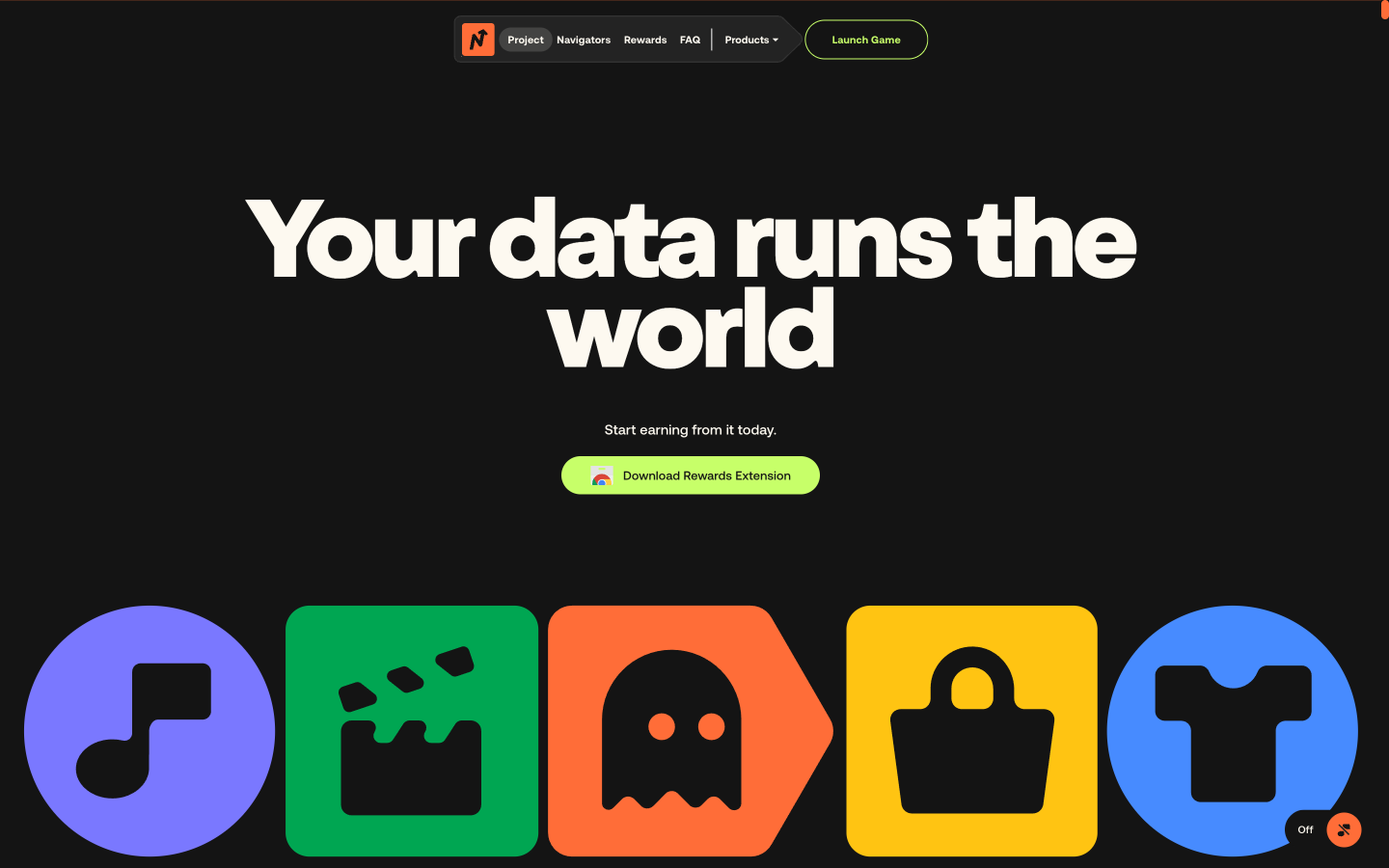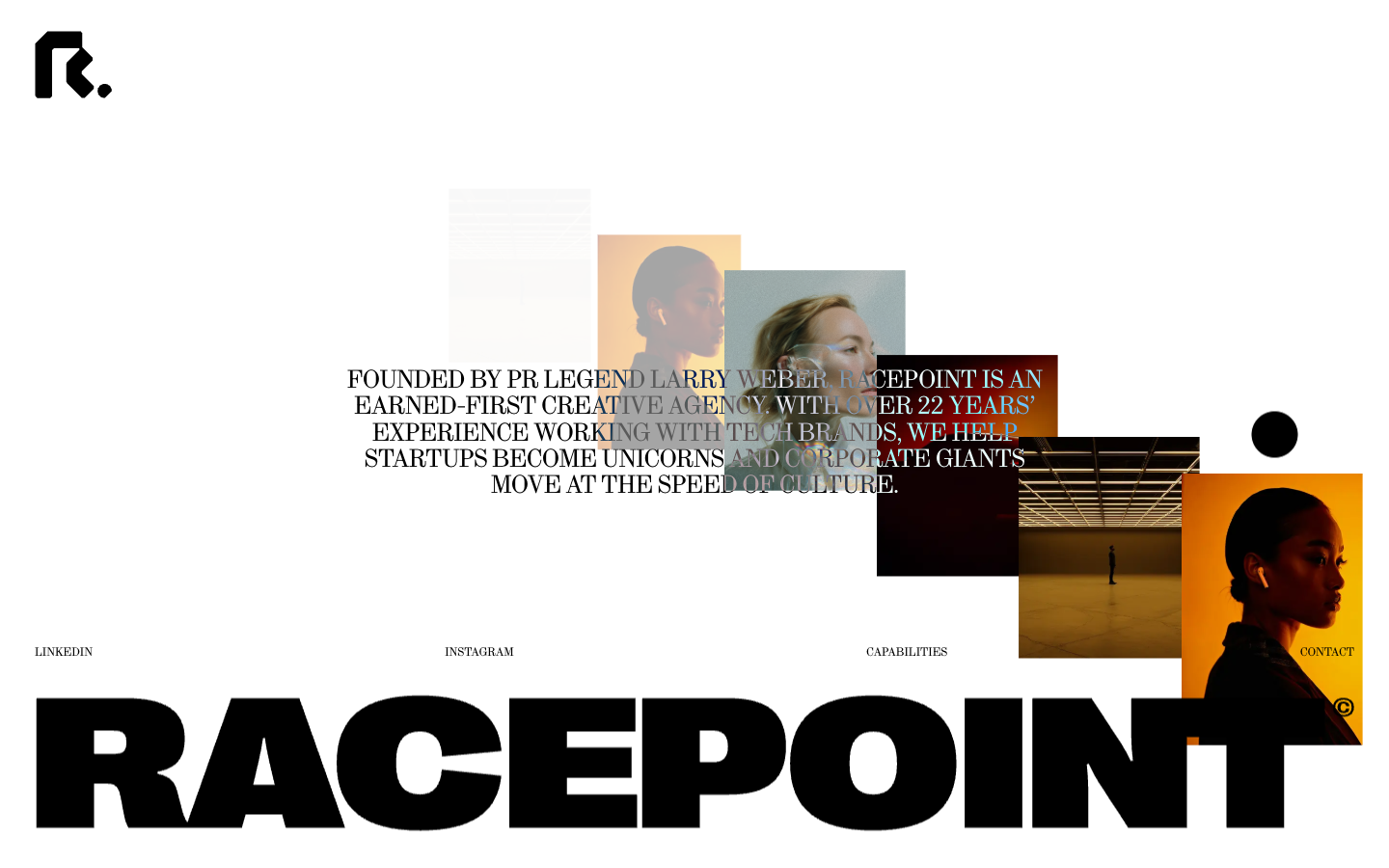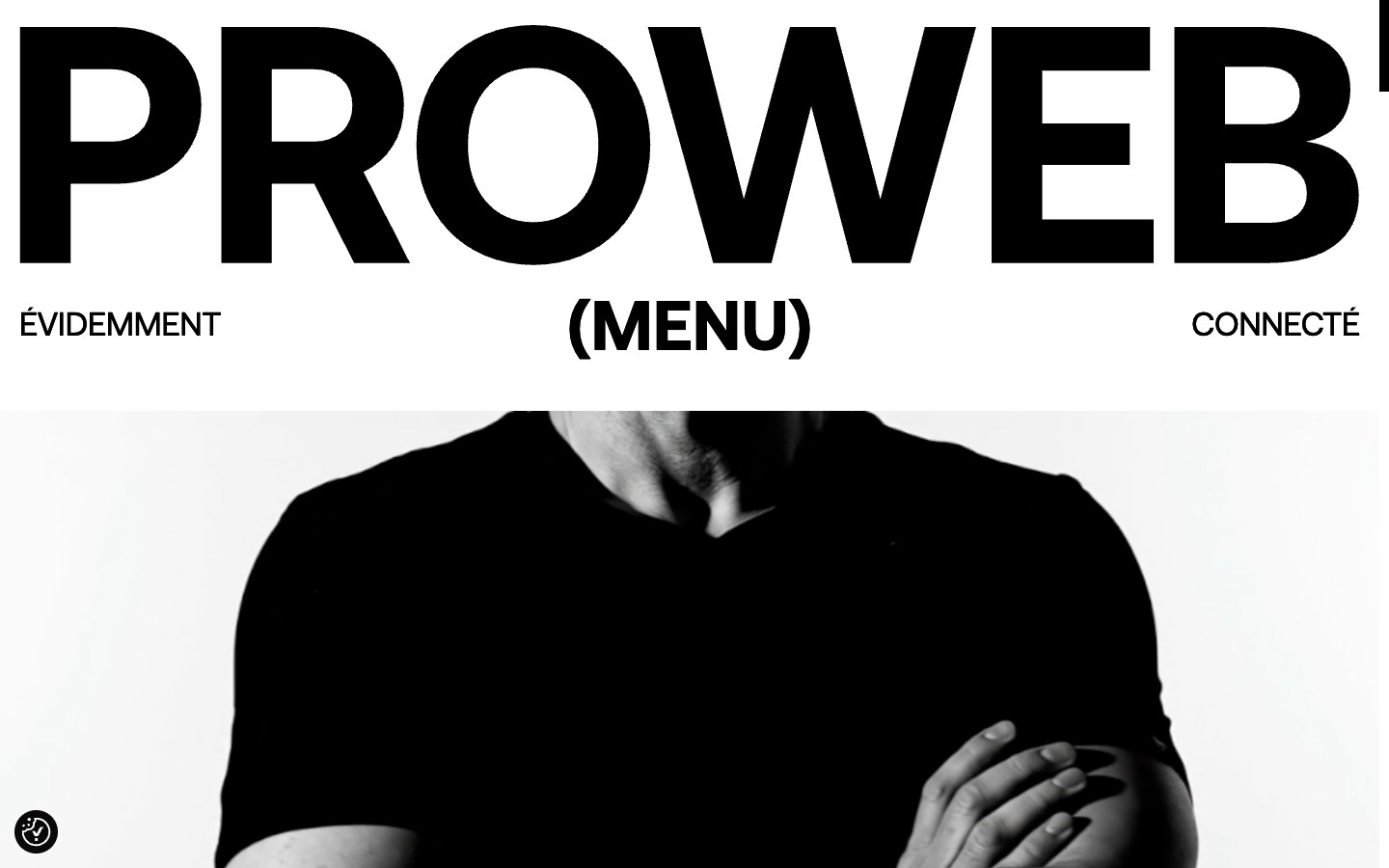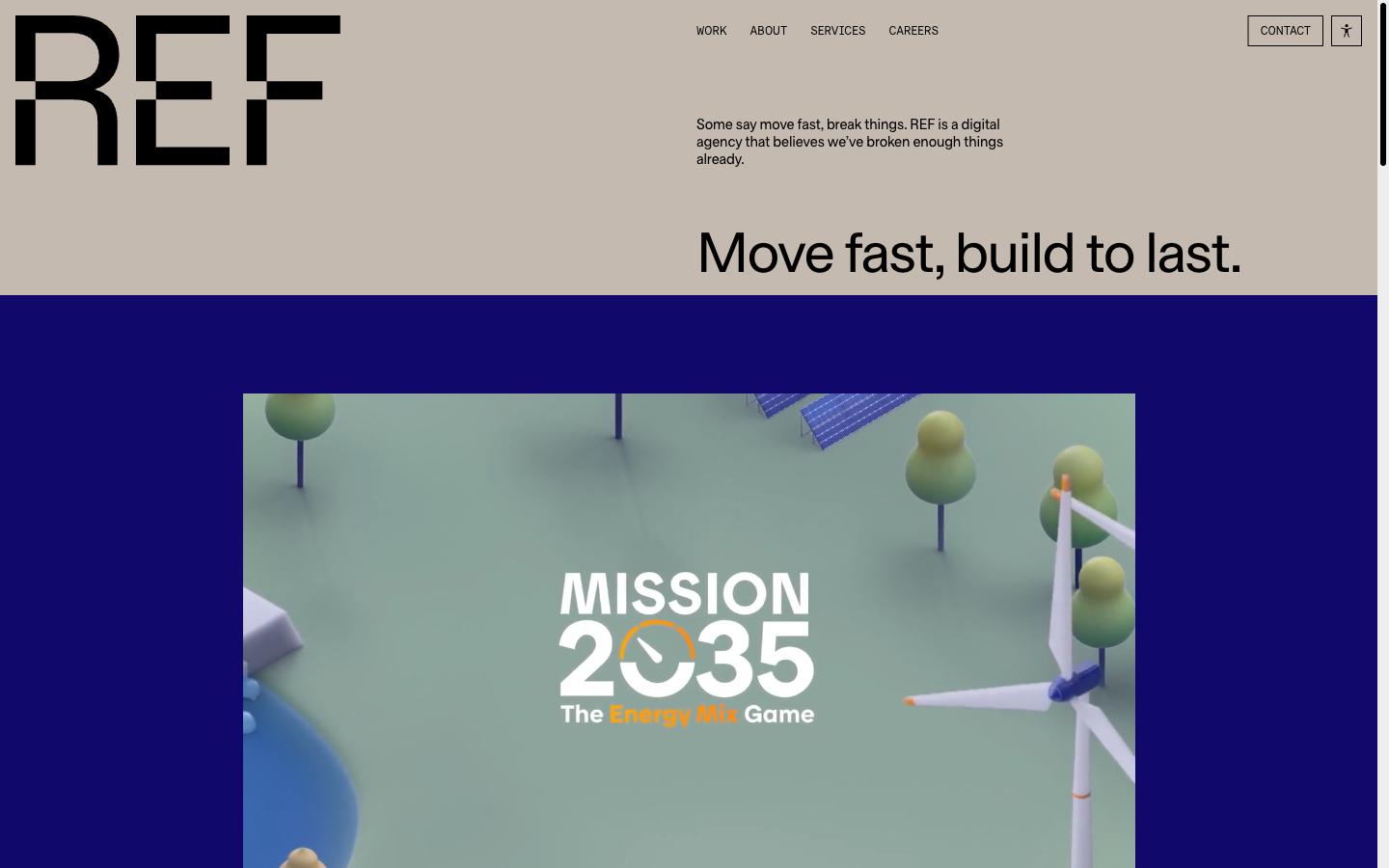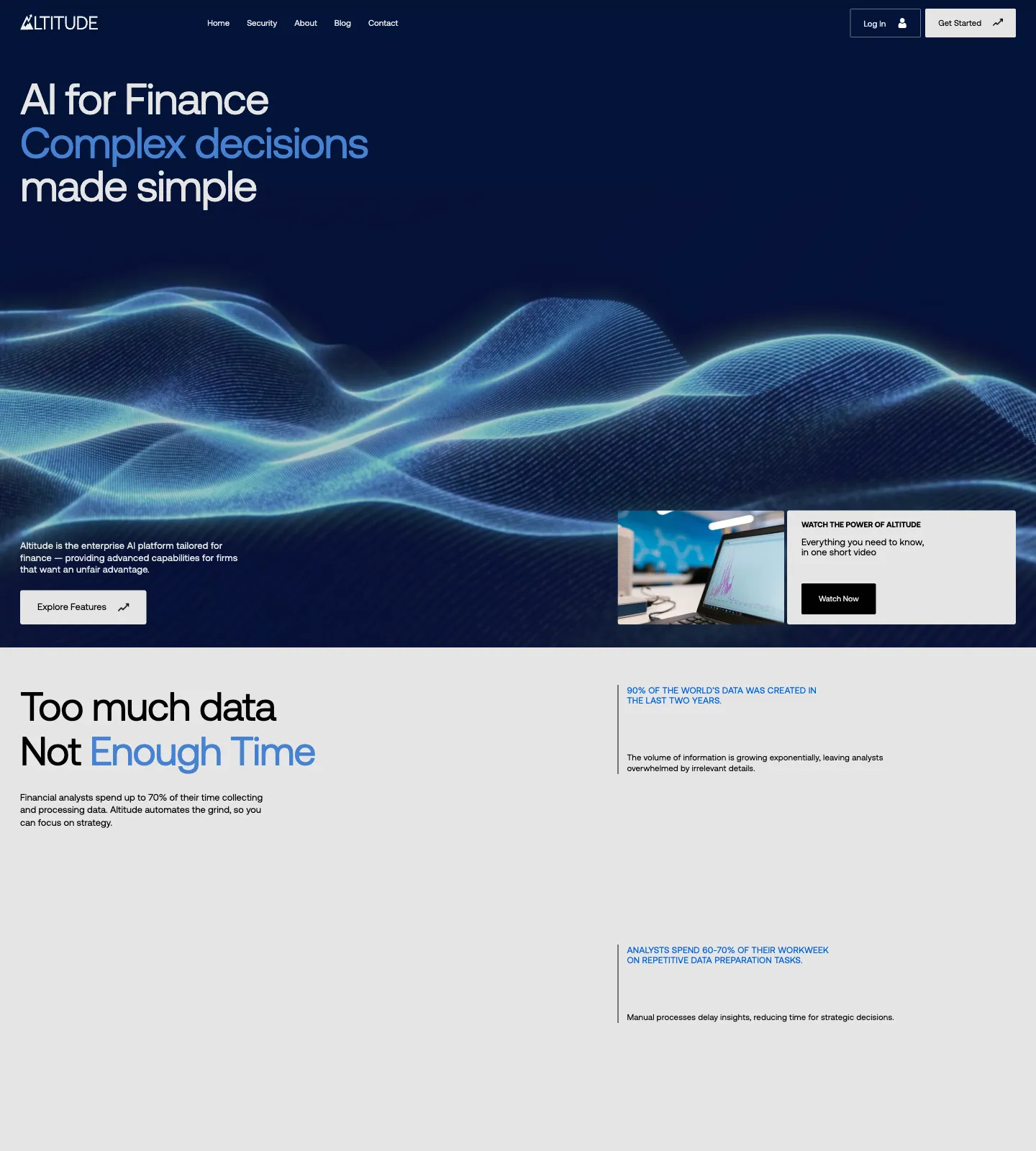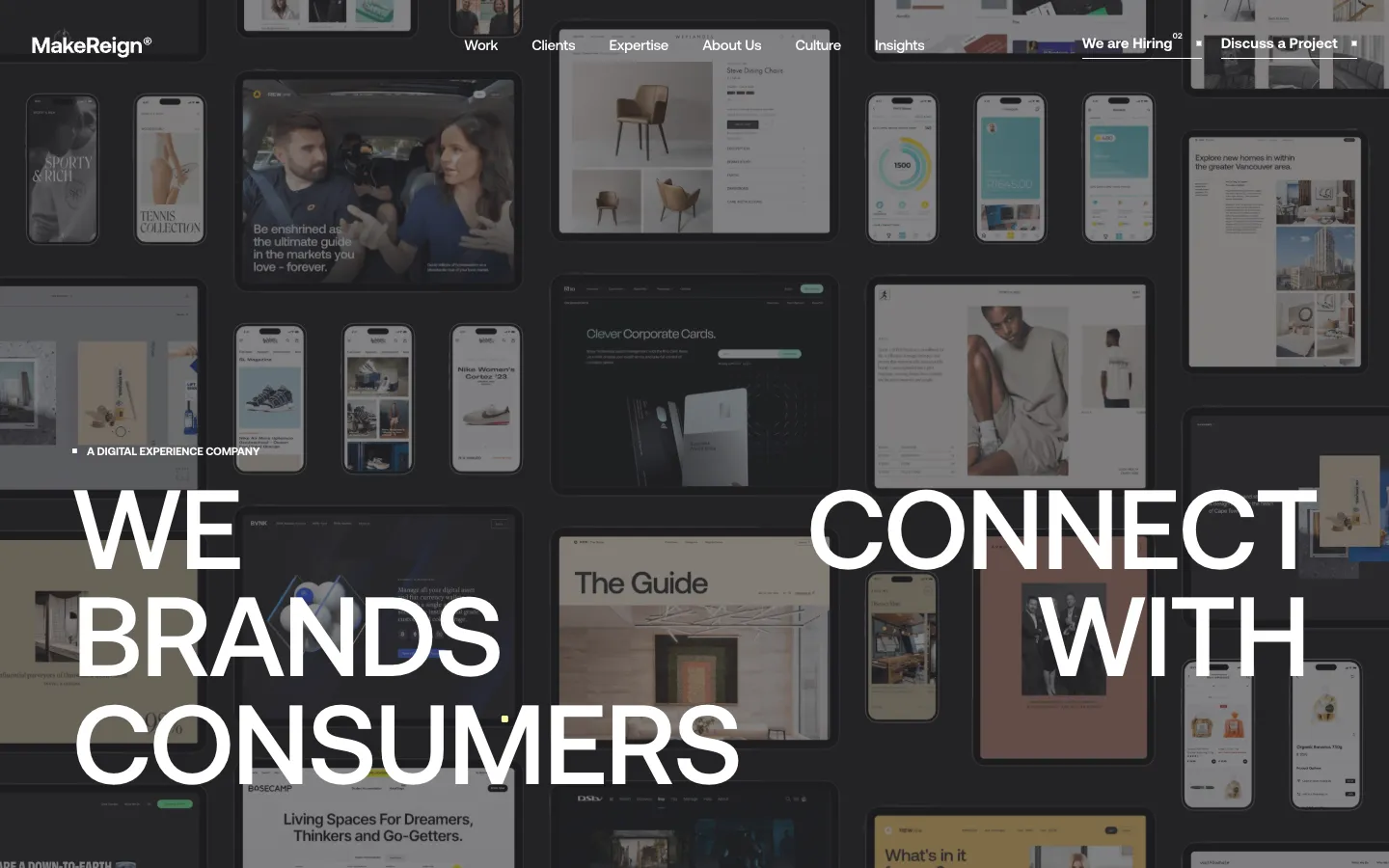
The Aeonik font on real websites
12 websites set in Aeonik, with their font pairings and stack.
Aeonik is a commercial neo-grotesque sans-serif by CoType Foundry. A neo-grotesque with geometric touches and a clean, technical tone, common on fintech and AI product sites.
- Sans-serif, neo-grotesque sans-serif
- CoType Foundry
12 websites in the save.design library use Aeonik. It shows up most on agency and portfolio sites. It's most often paired with Geist Mono, Inter and Habitus. Sites using Aeonik are most often built with React (67%).
Which websites use Aeonik?
Recent examples include anagram.club, verteal.com, avax.network and ref.digital. All 12 websites using Aeonik are on this page, with the rest of their fonts and their tech stack.
What fonts pair well with Aeonik?
On real sites, Aeonik is most often set alongside Geist Mono (8% of them), Inter (8% of them) and Habitus (8% of them).